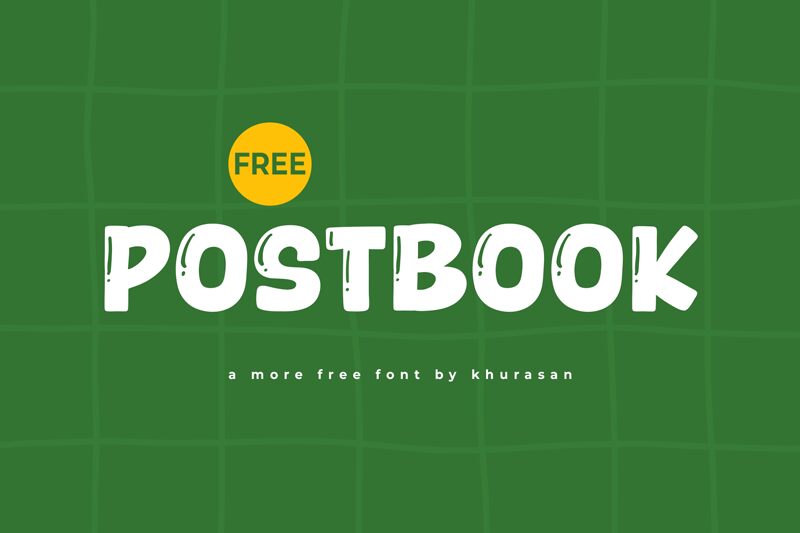
Postbook font family by Khurasan™ comes in 2 font styles that offer an impactful decorative approach to modern design projects. The font strokes are textured and possess that cartoon, slightly whimsical appearance. Being a casual-looking, friendly font, Postbook is a remarkable choice as a headline font, in separate letters, combinations, and words or used for composing short sentences.